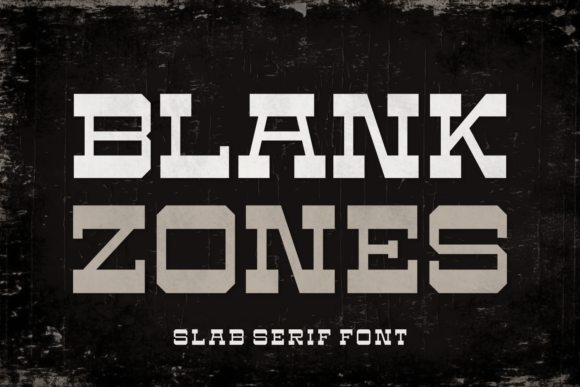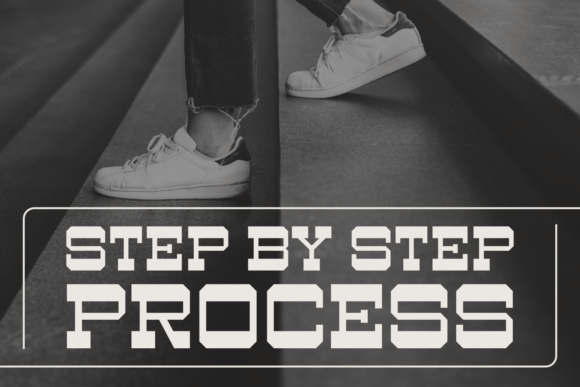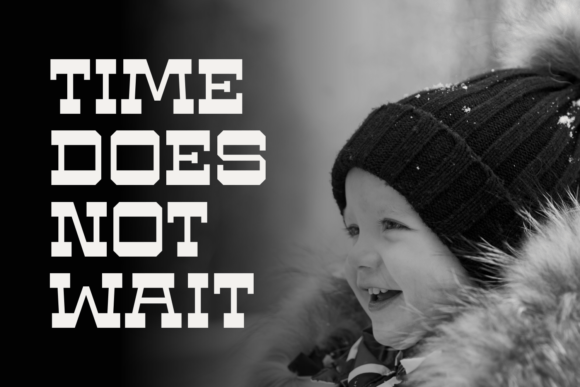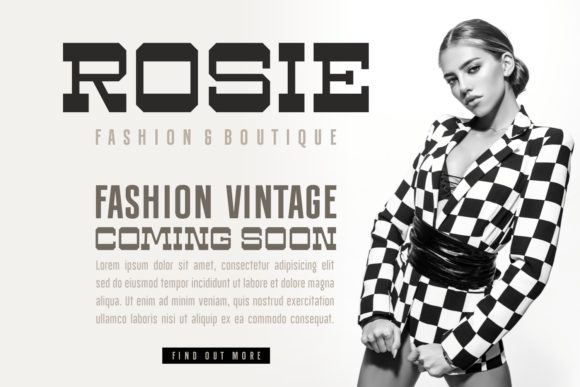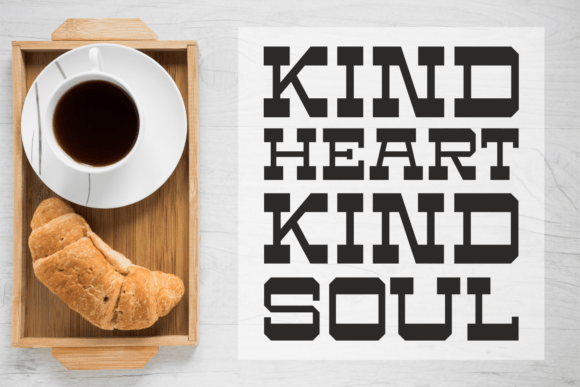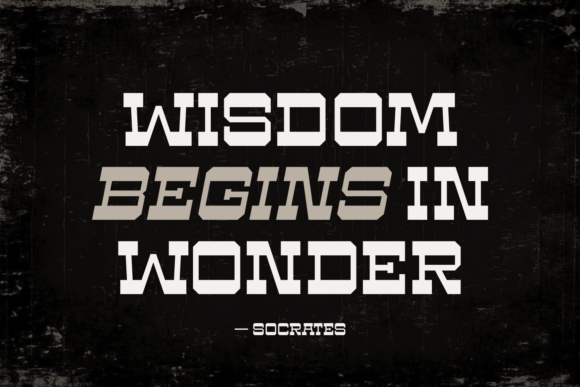
Blank Zones Font
About Blank Zones Font
Blank Zones is a rugged and bold slab serif Western font. With strong lines and a hint of frontier spirit, this font brings a touch of the Wild West to your designs. Ideal for adding a rustic flair to your projects, Blank Zones is straightforward and impactful. Whether you’re crafting a vintage poster or a cowboy-themed invitation, this font captures the essence of the frontier with its sturdy design. Saddle up your creativity with Blank Zones for an authentic Western touch.